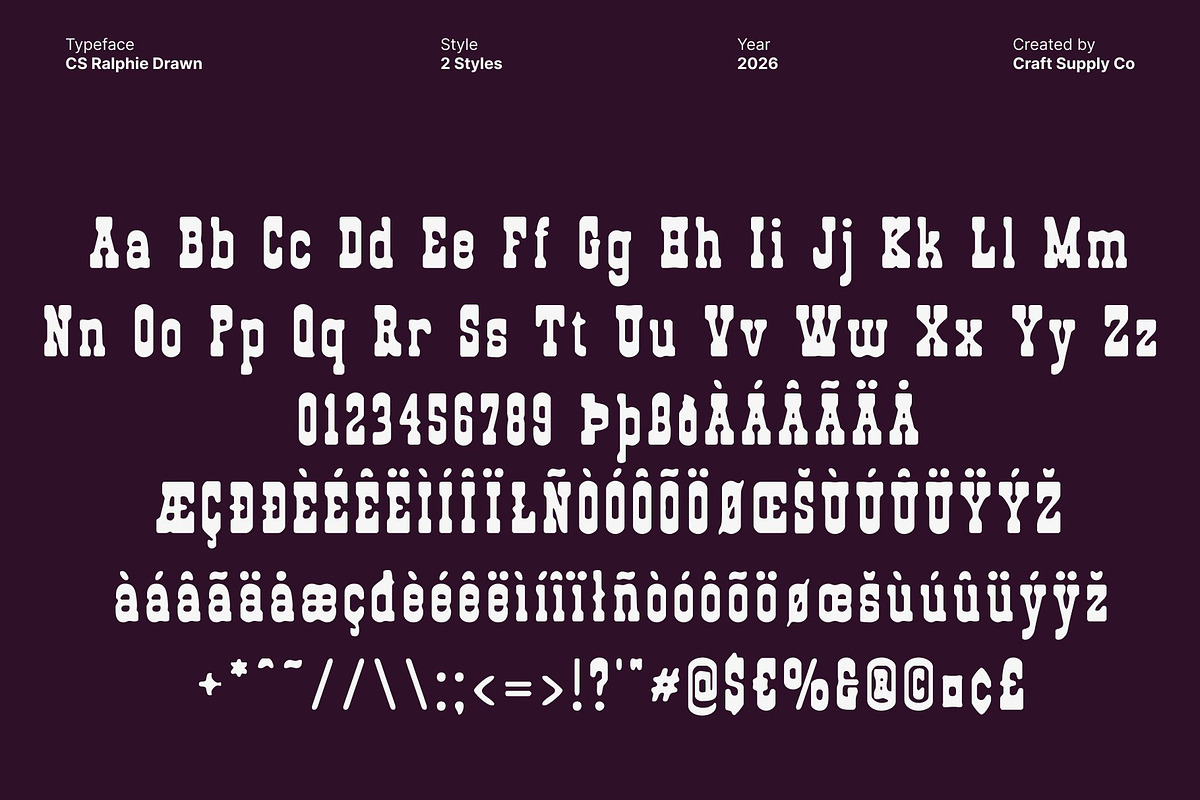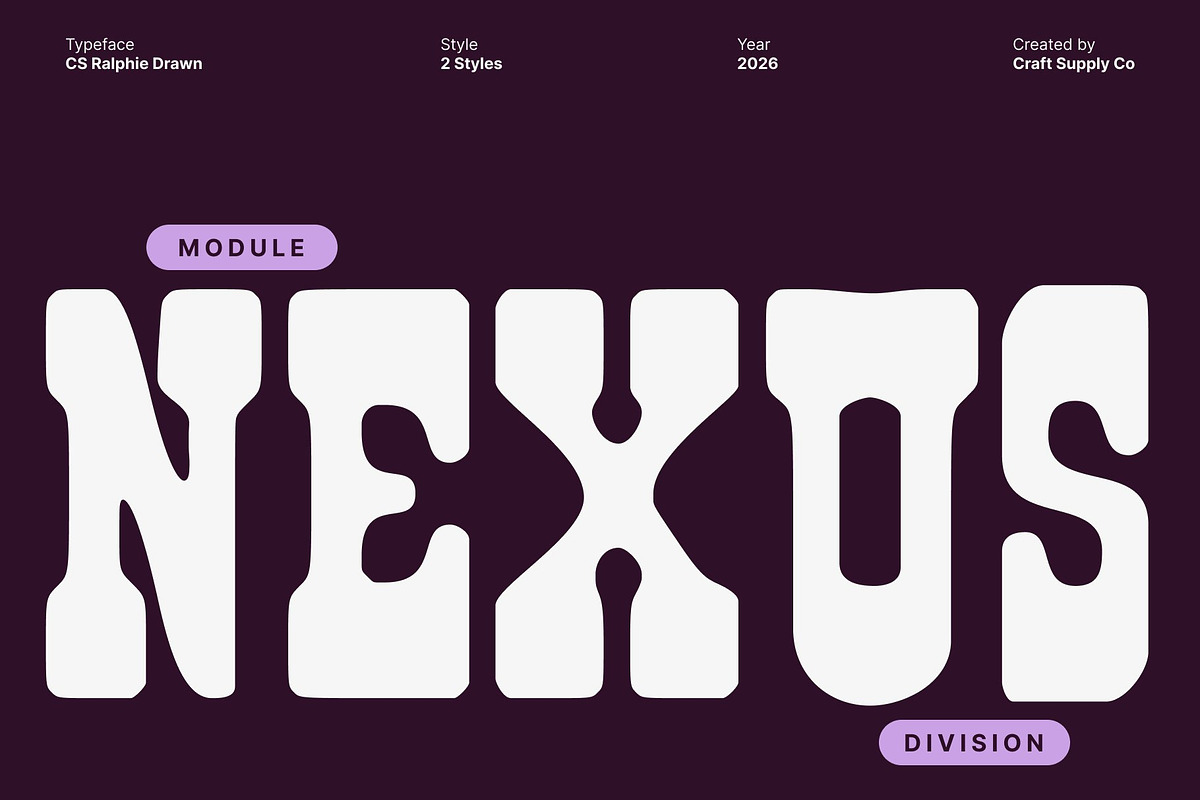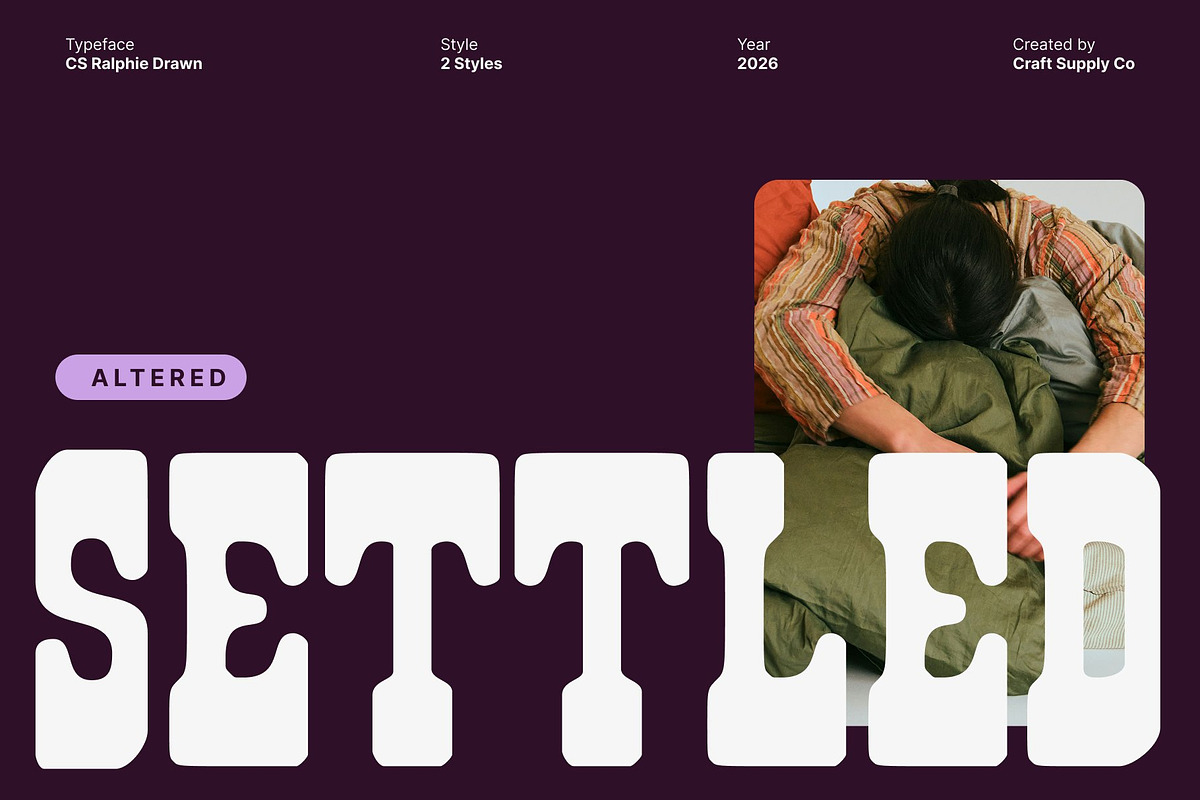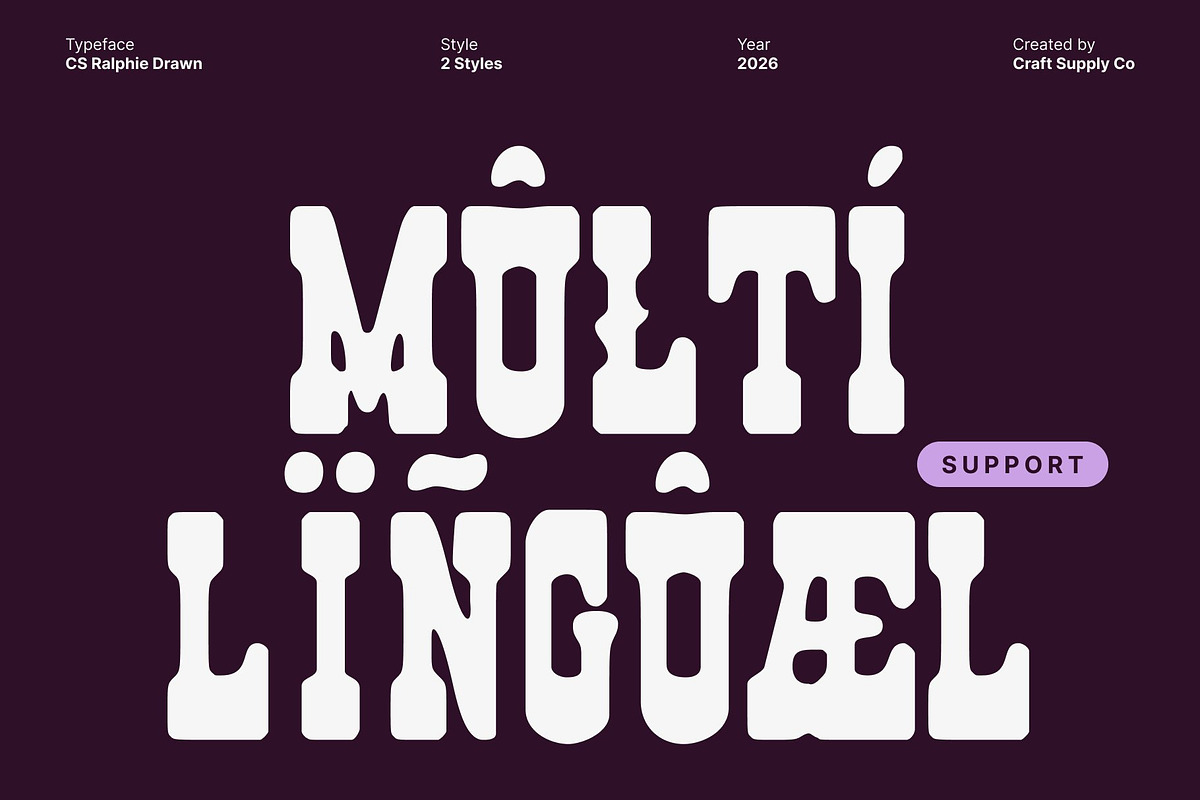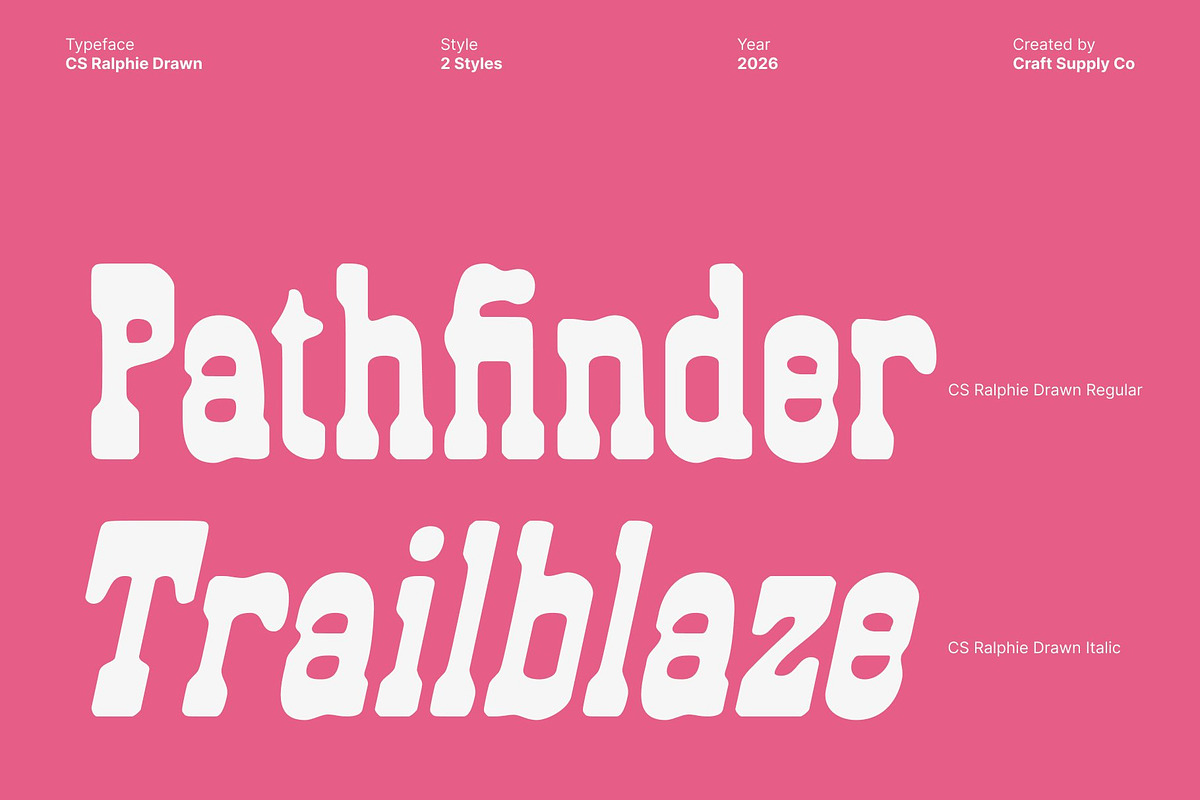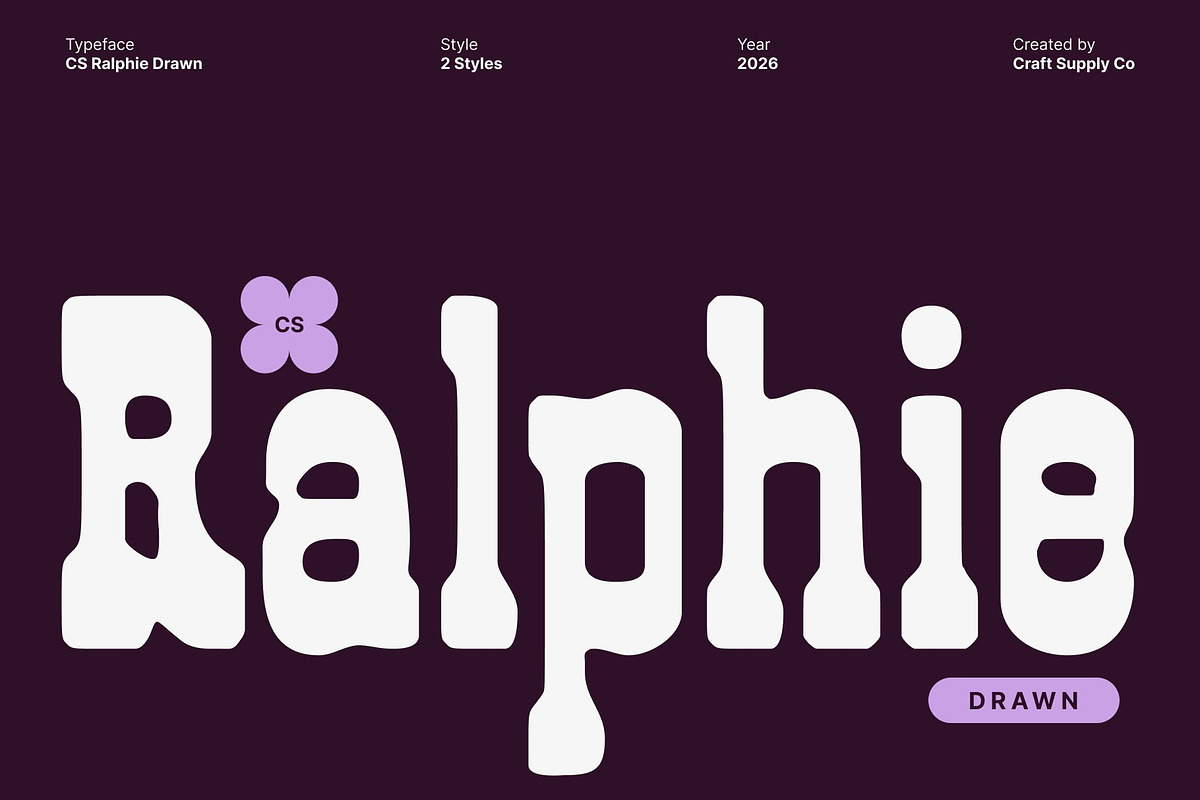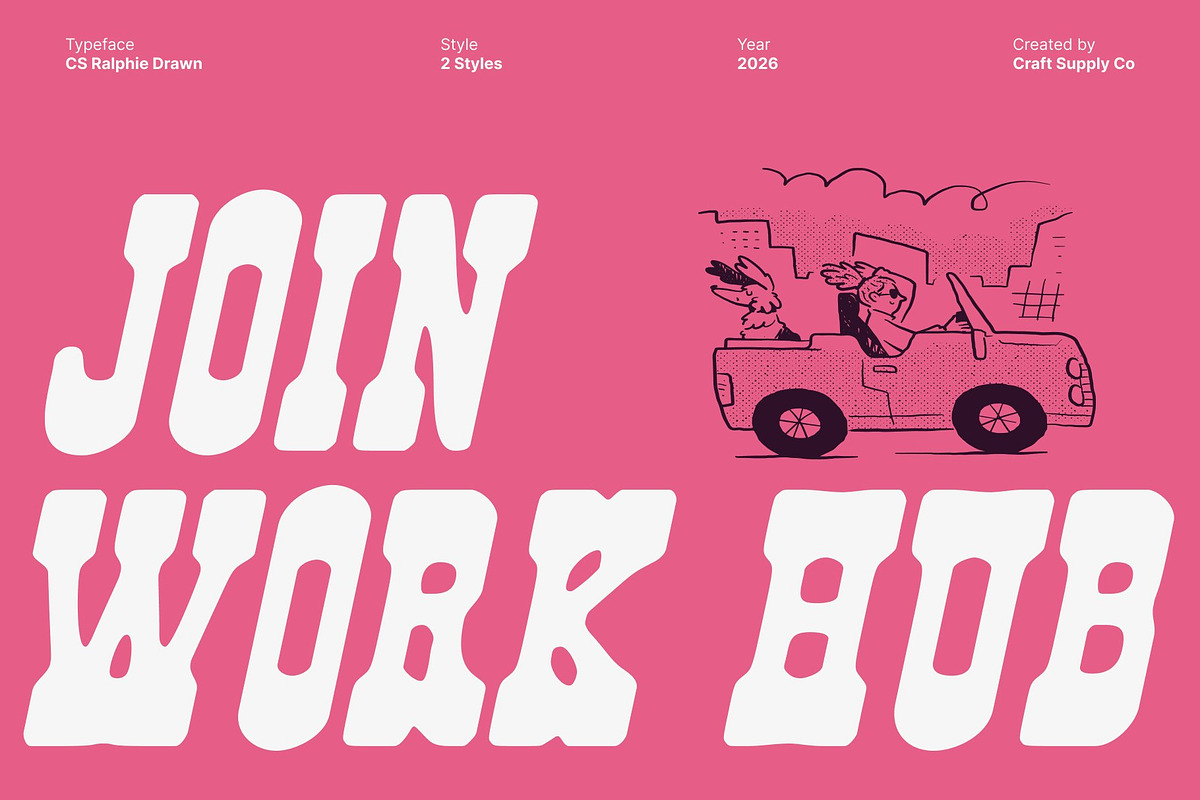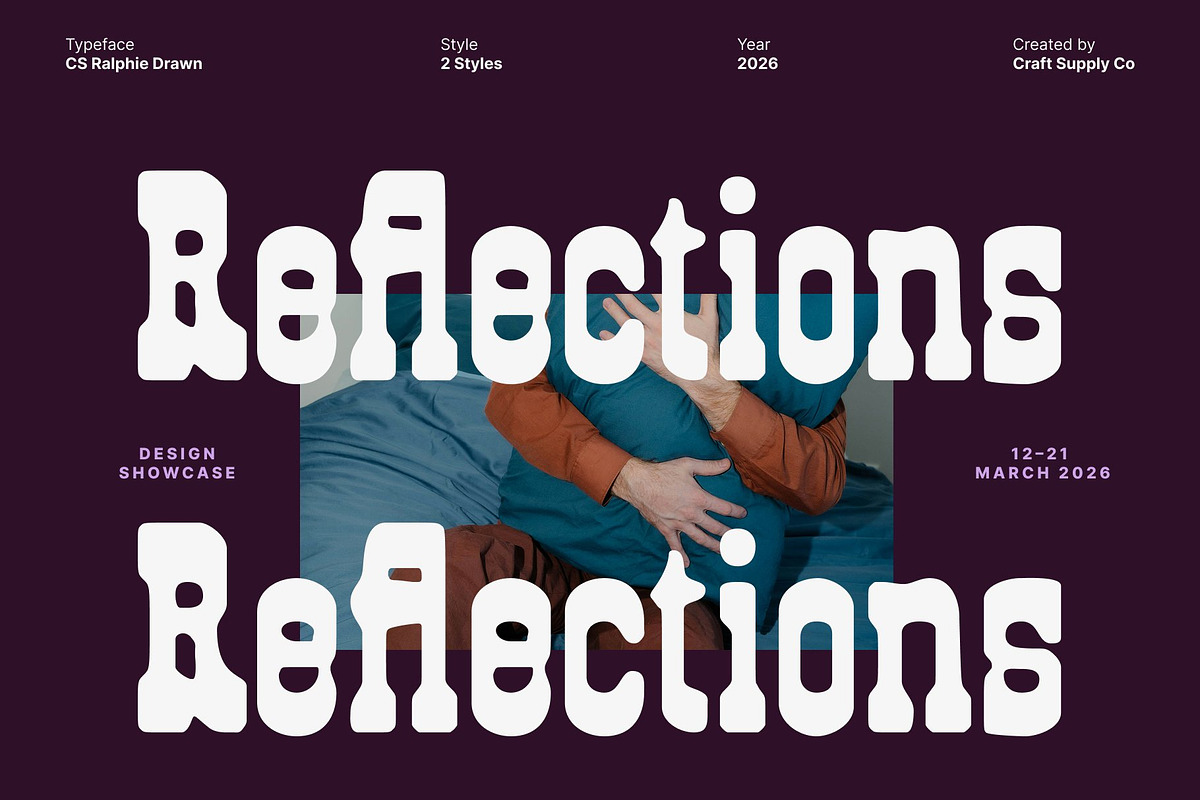
CS Ralphie Drawn
CS Ralphie Drawn – Western Display Font with Slab Serif and Reverse Contrast
Character Rooted in Old Western Spirit This is a striking western display font inspired by vintage frontier signage, saloon posters, and rugged hand-painted lettering. Its design captures the raw atmosphere of the old West, blending bold structure with a handcrafted drawn texture that adds authenticity and character. The result is a font that feels expressive, nostalgic, and visually powerful.
Reverse Contrast for Dramatic Visual Impact The reverse contrast design introduces a unique rhythm by placing visual weight in unexpected areas. This distinctive contrast creates eye-catching letterforms that feel bold and memorable, enhancing visual interest without sacrificing readability. The drawn finish softens the sharp contrast, giving the font a lively, organic personality ideal for statement typography.
Slab Serifs with Rugged Authority Strong slab serifs define the font’s western identity, evoking the strength of wooden signboards and iron-forged lettering. These sturdy details anchor each character firmly, delivering a sense of durability and confidence. Combined with the drawn texture, the slab serifs feel both tough and expressive.
Perfect for Vintage, Western, and Branding This font ideal for posters, branding, logos, packaging, and vintage-themed designs. From western-inspired brands and music artwork to event promotions and editorial headlines, this font delivers authentic cowboy grit and timeless frontier charm, making every design feel bold, adventurous, and unforgettable.
- CS Ralphie Drawn Regular
- CS Ralphie Drawn Italic